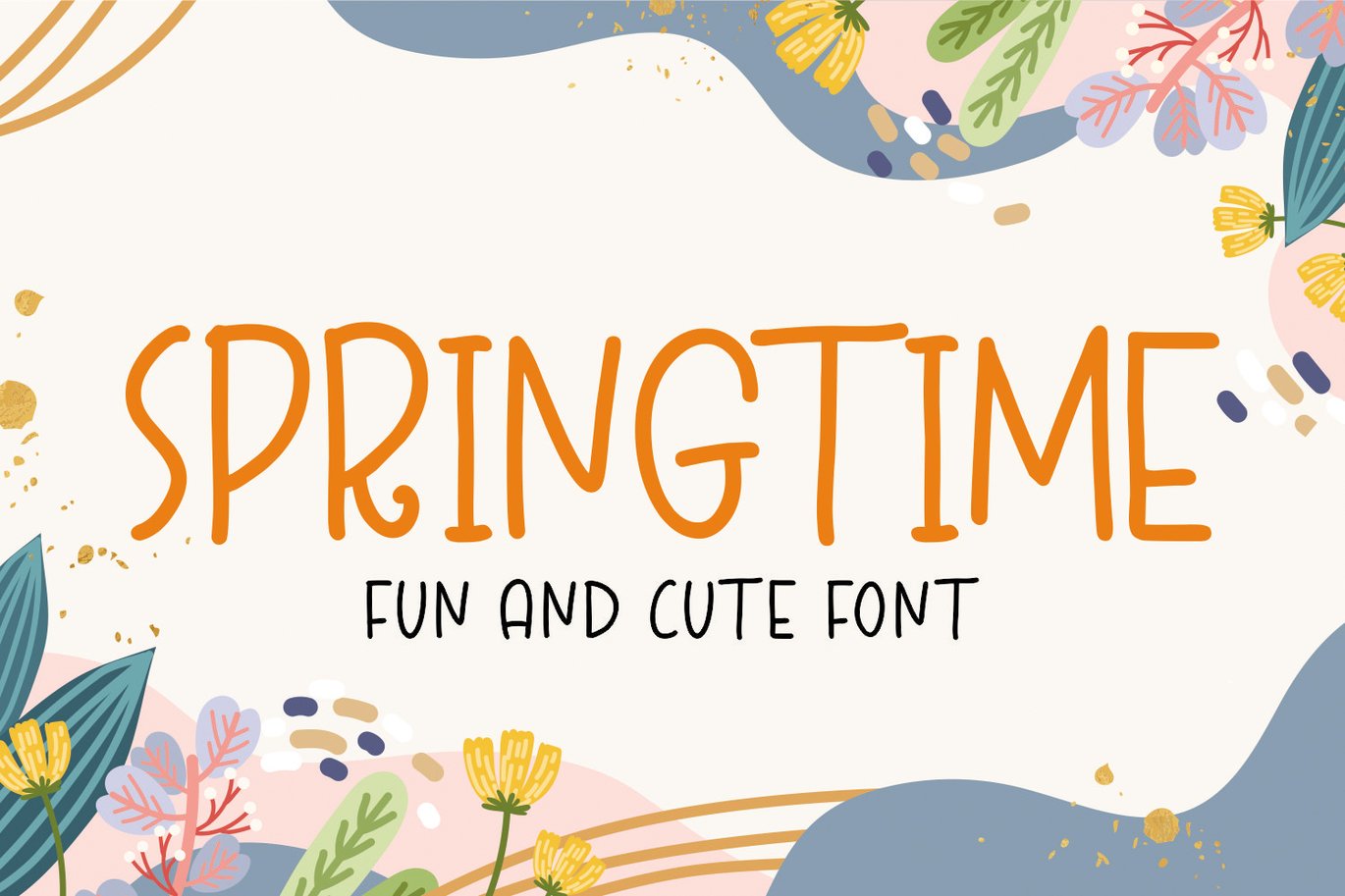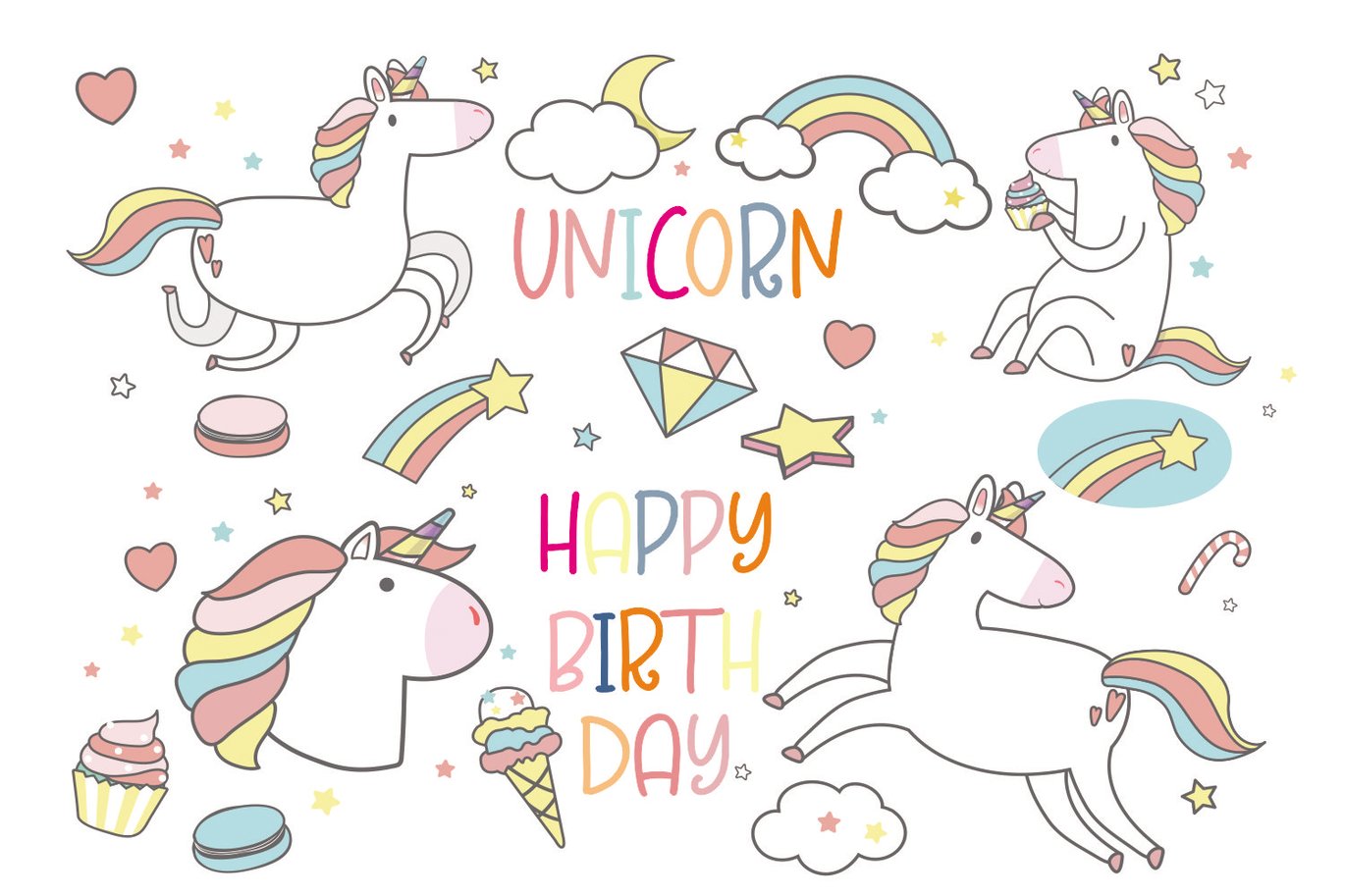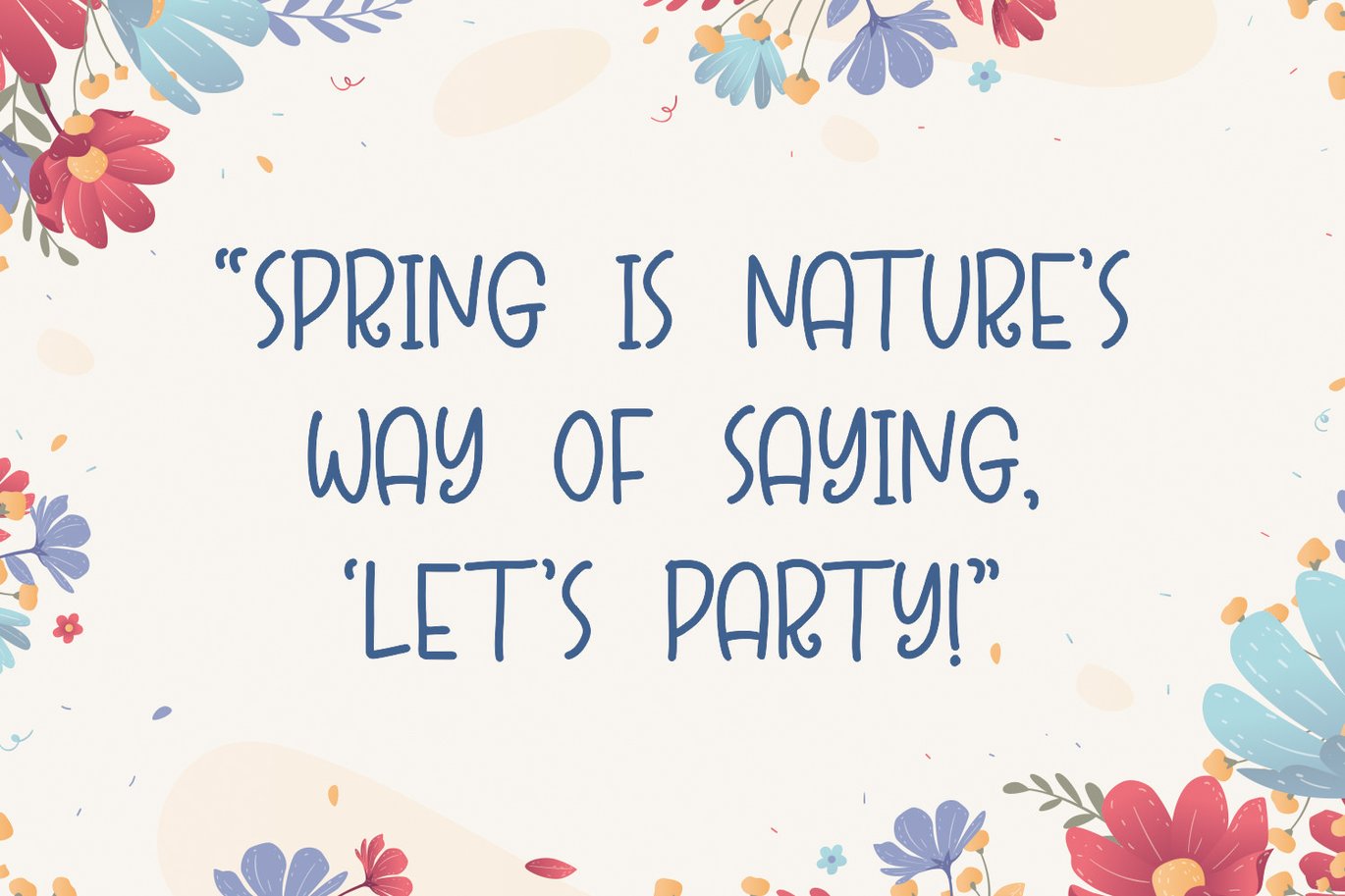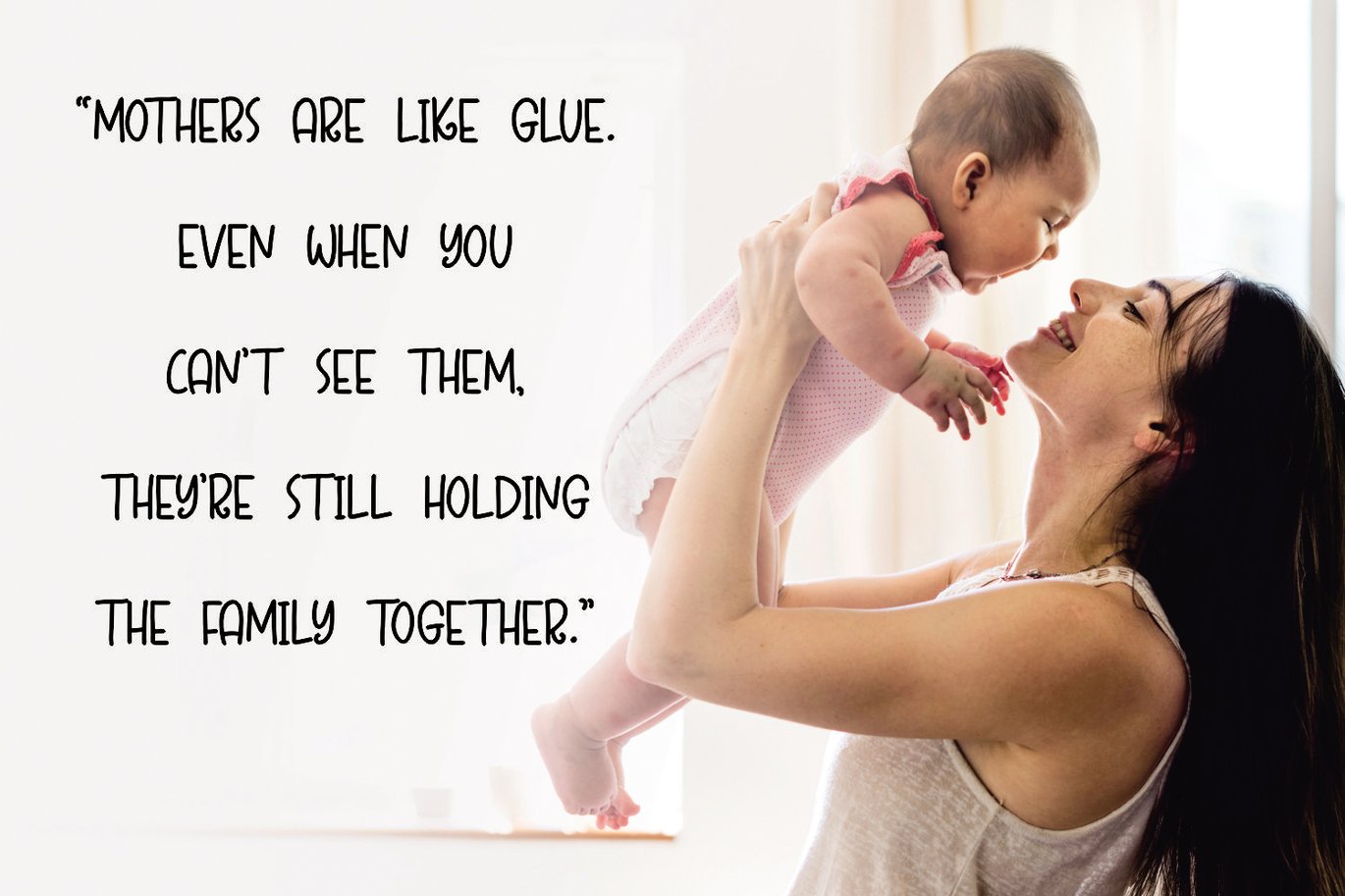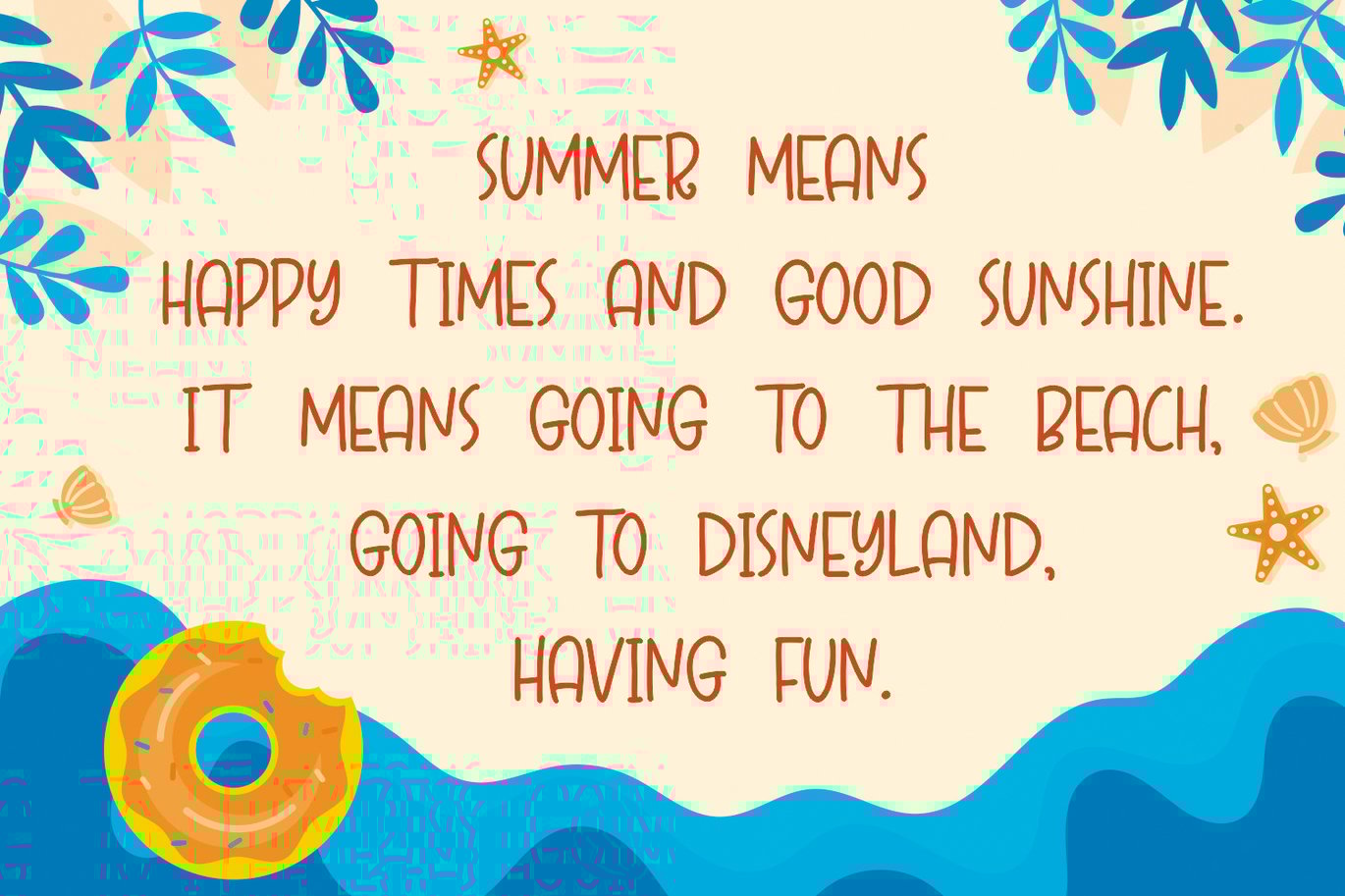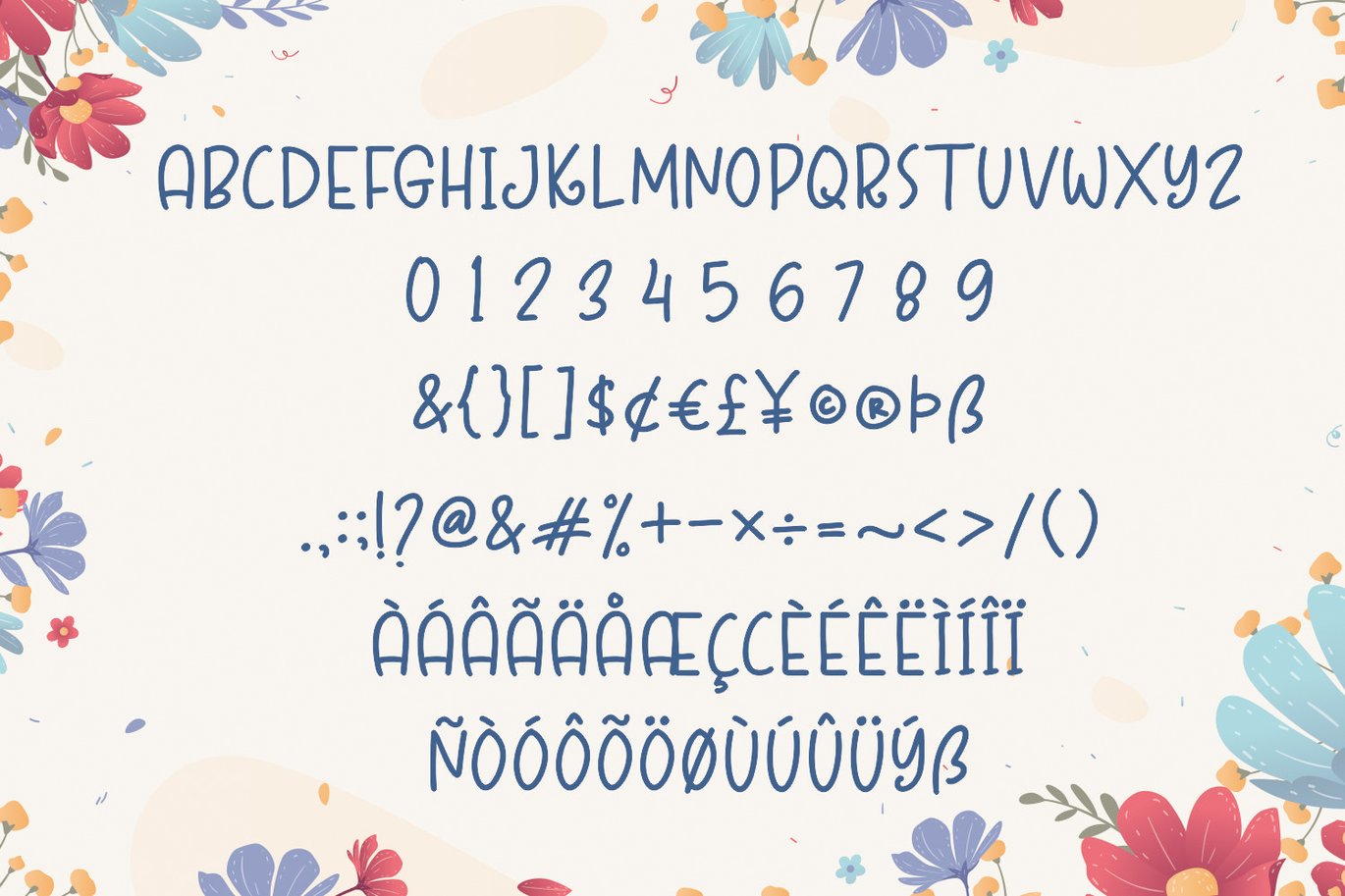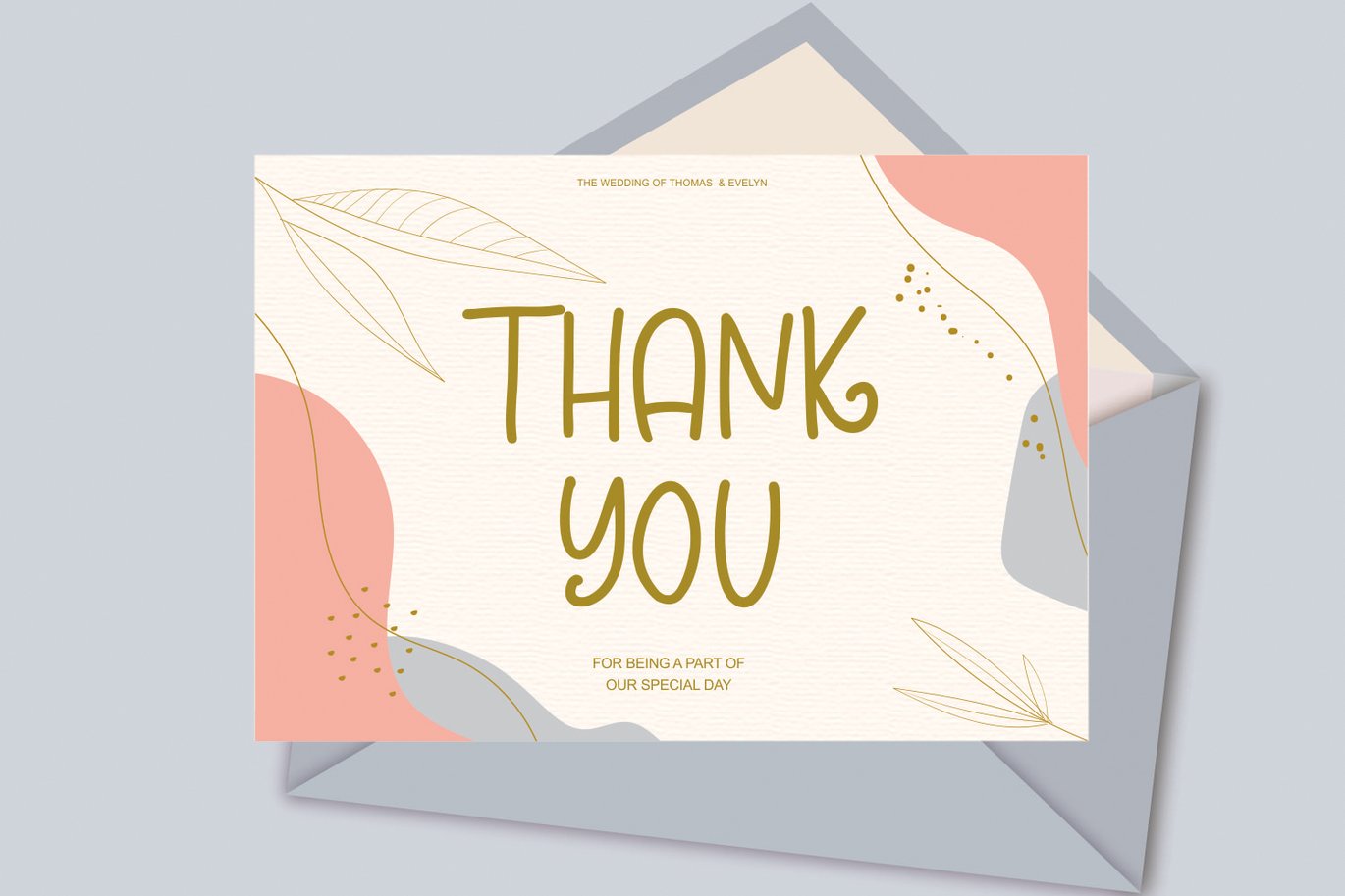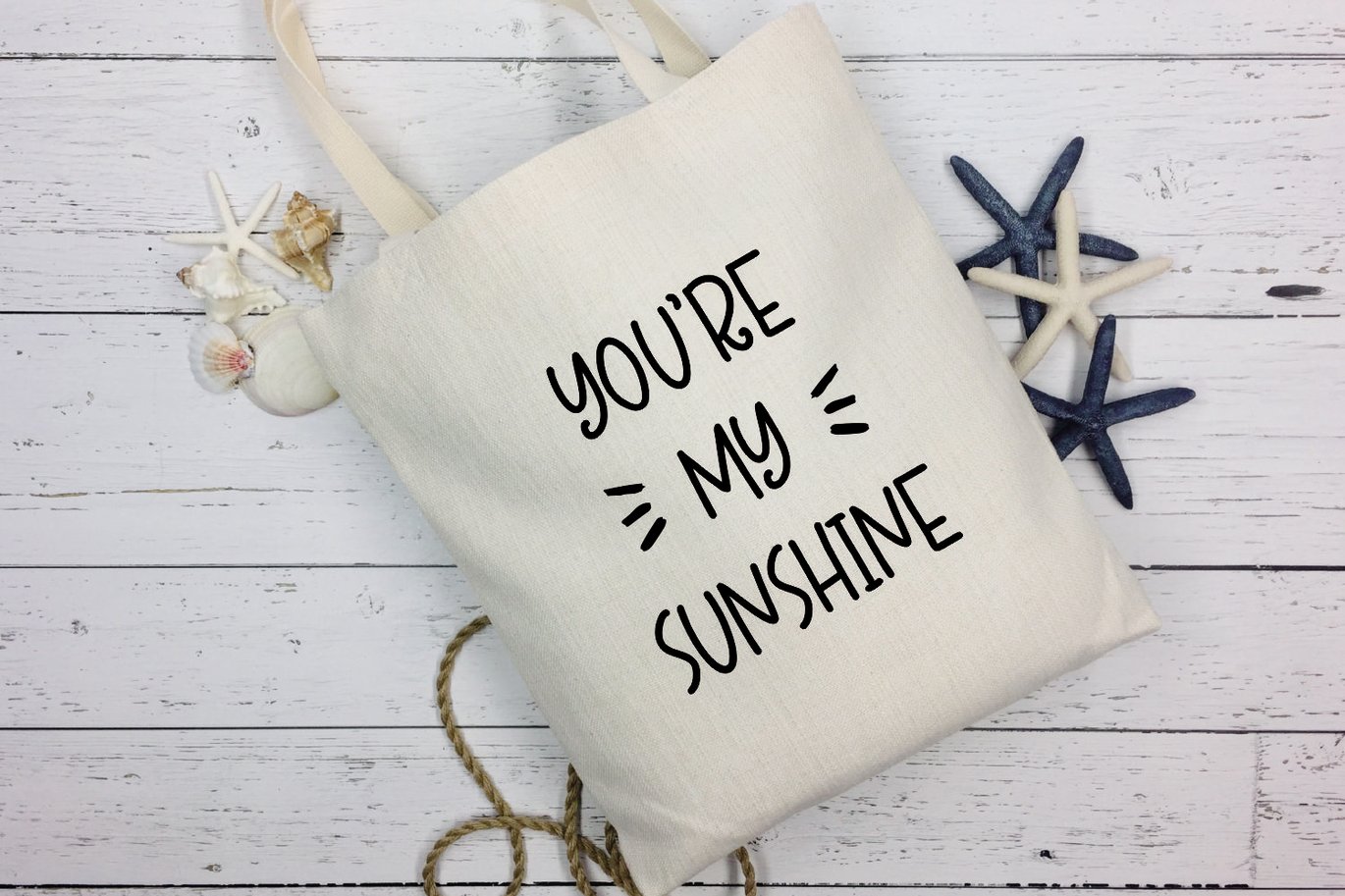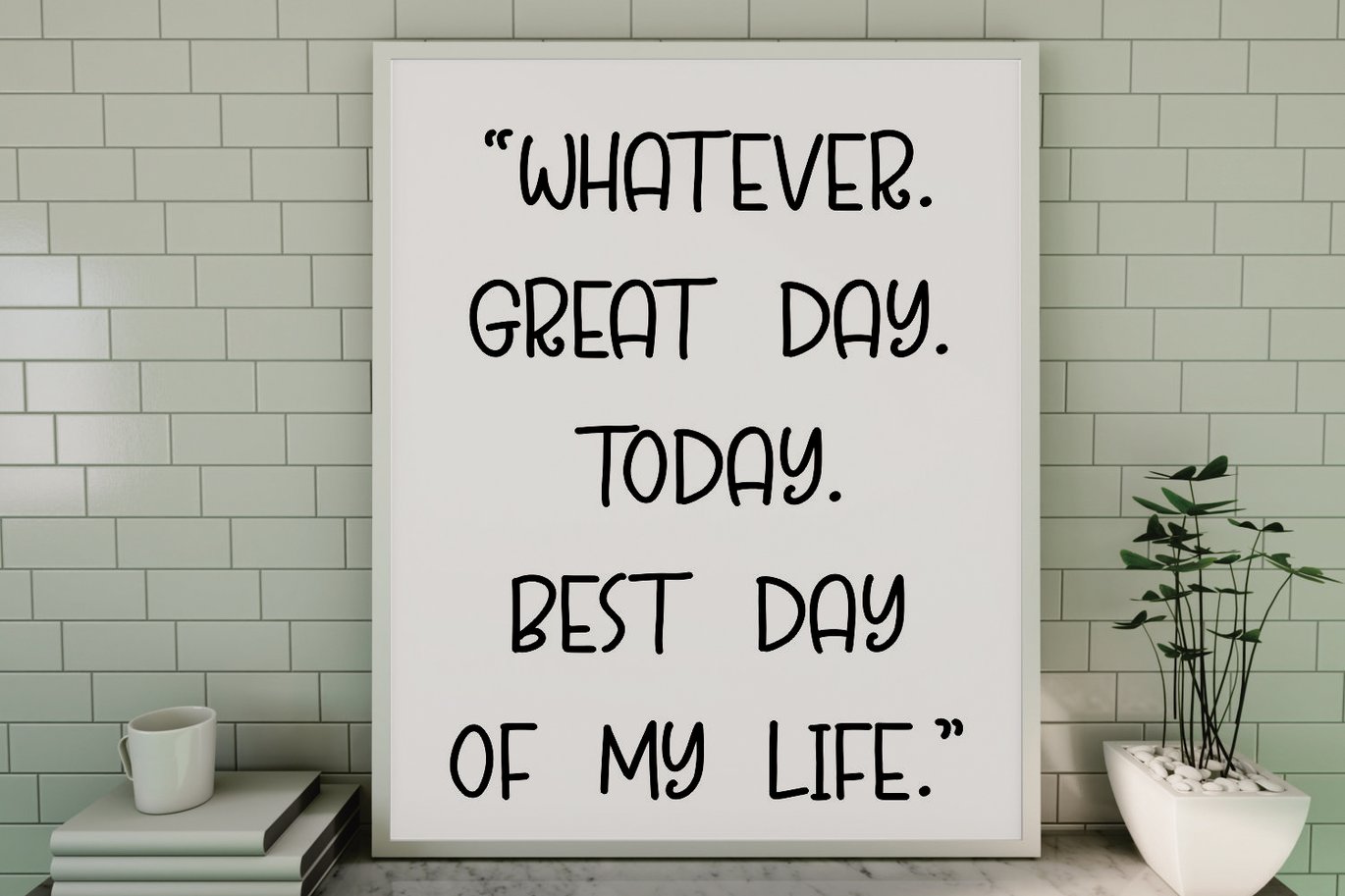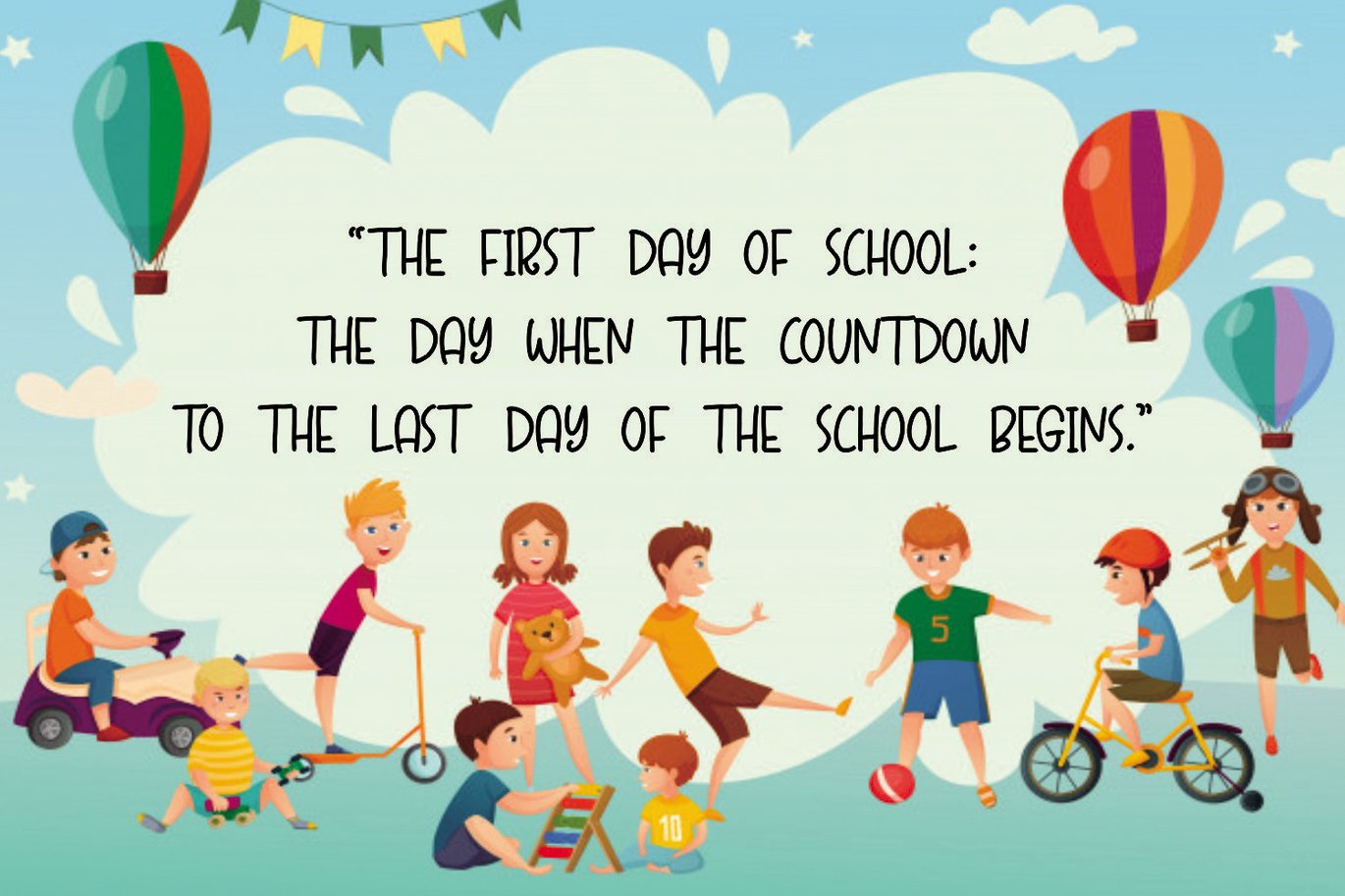
SPRINGTIME – Summer Font
Introducing Springtime, a fun and cute handwritten font that adds a touch of charm to any design. Its natural and unique style makes it incredibly versatile, perfect for a wide range of projects. Whether you’re working on crafting projects, branding, or decorative pieces, Springtime provides a personalized look that stands out.
Springtime is PUA encoded, giving you easy access to all glyphs and swashes for seamless customization. This makes it ideal for wedding invitations, blogs, logos, and beautiful frames for your home. Use it for business materials, book covers, stationery, marketing campaigns, and magazines—the possibilities are endless!
Let your creativity flow with Springtime. It’s perfect for t-shirts and apparel, promotional materials, sports events, music festivals, quotes, and special events. The only limit is your imagination! Add Springtime to your toolkit and watch your designs come to life with a delightful and personalized touch.